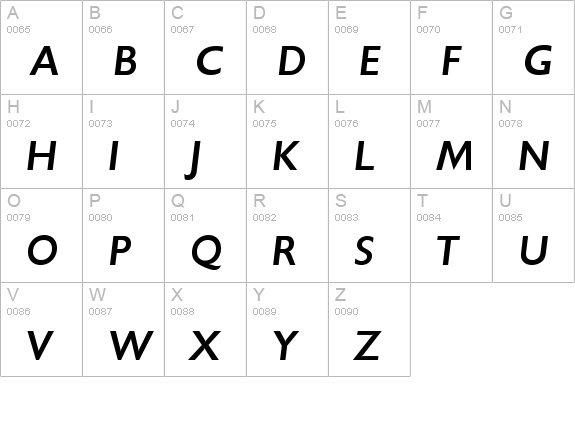
Chantilly-MediumIta font is a beautifully designed typeface that exudes elegance and sophistication. Its medium italic style adds a touch of flair to any project, making it perfect for headings, quotes, and other display text. The graceful curves and subtle slant of this font create a sense of movement and flow, capturing the eye of the reader. What makes Chantilly-MediumIta font even more appealing is that it is available for free download at FontsMarket.com. This means that you can easily access and use this stunning font in your designs without any cost. Whether you are working on a personal project or a professional design, Chantilly-MediumIta font is a versatile choice that will elevate your work to the next level. Add a touch of sophistication to your typography with Chantilly-MediumIta font today!